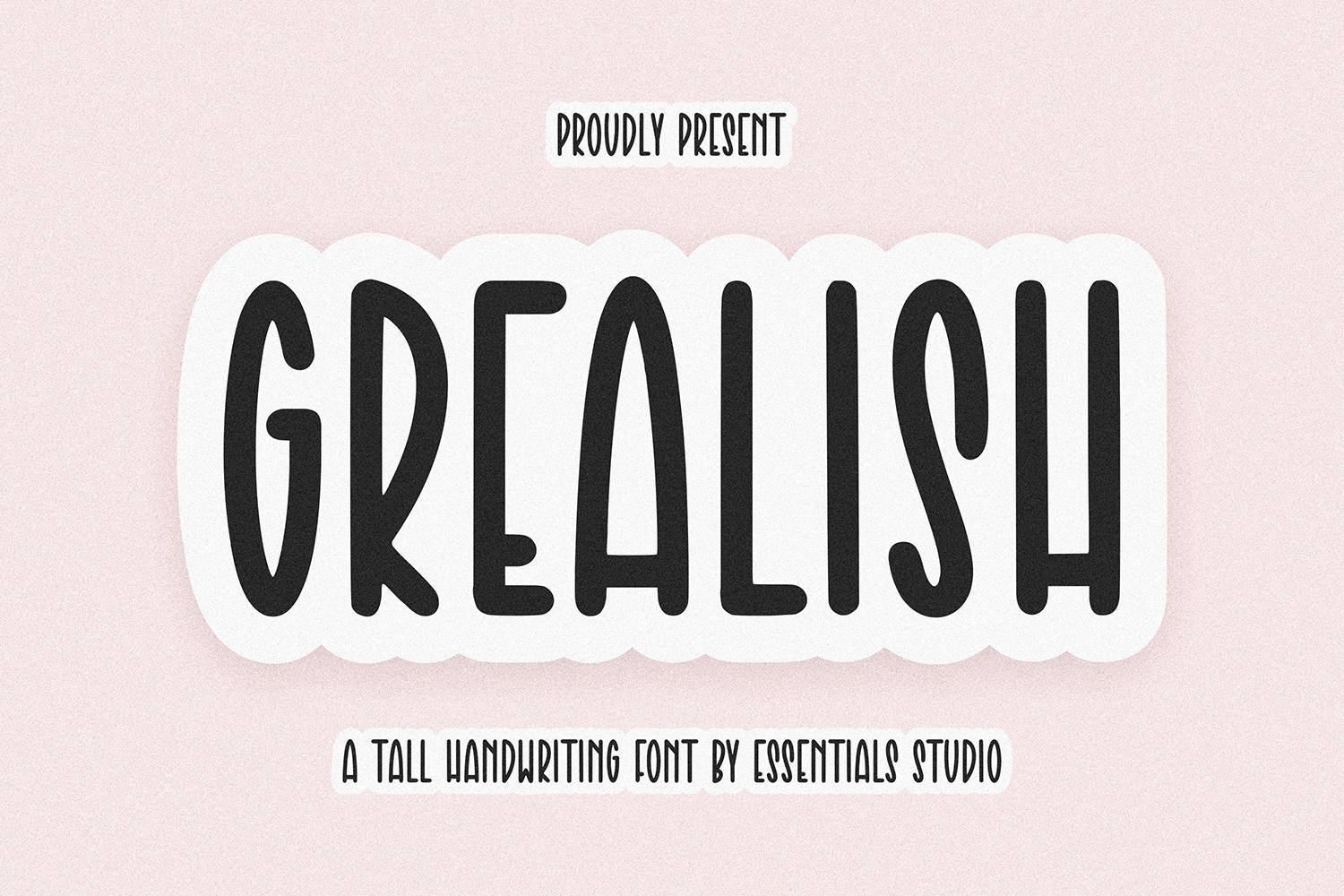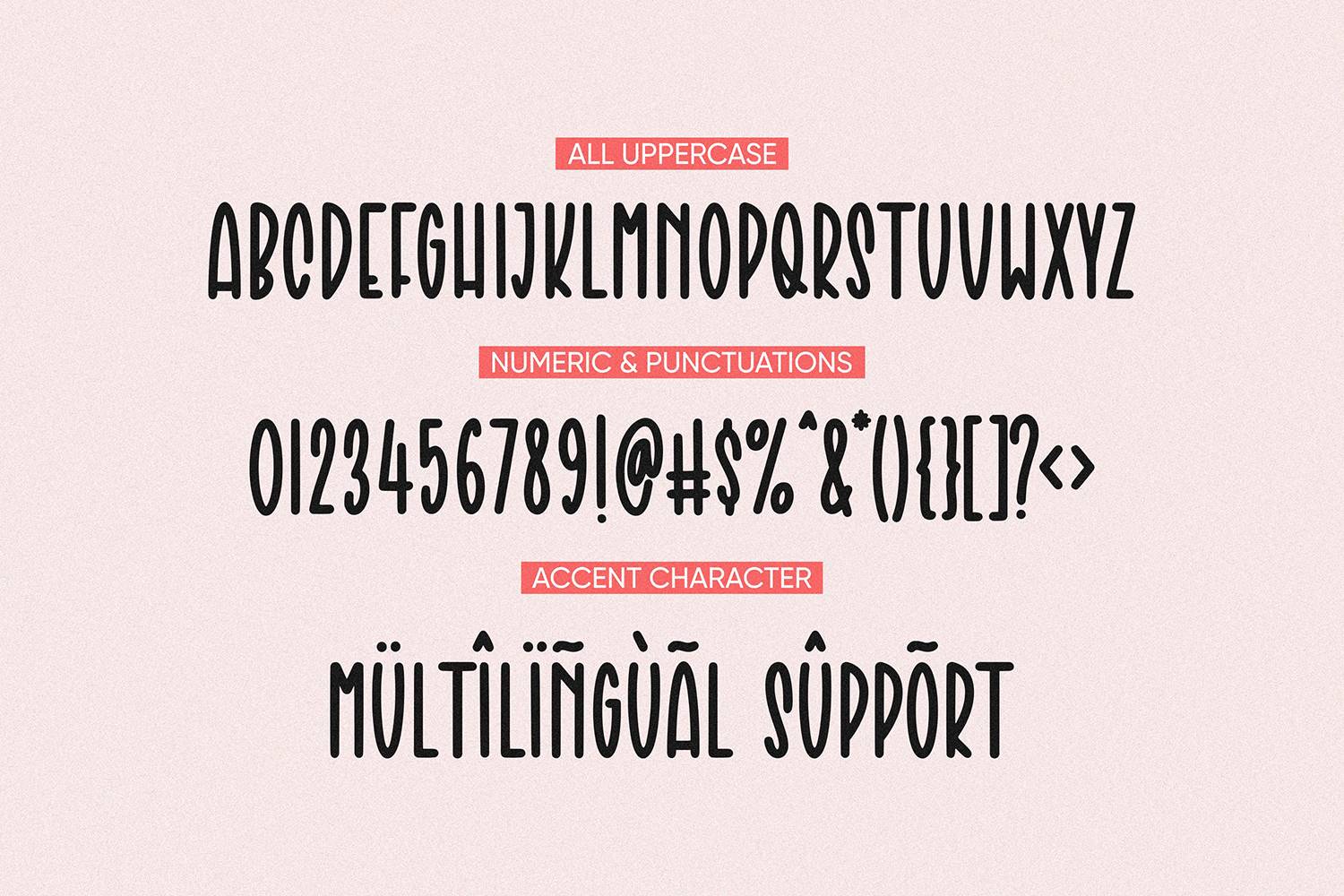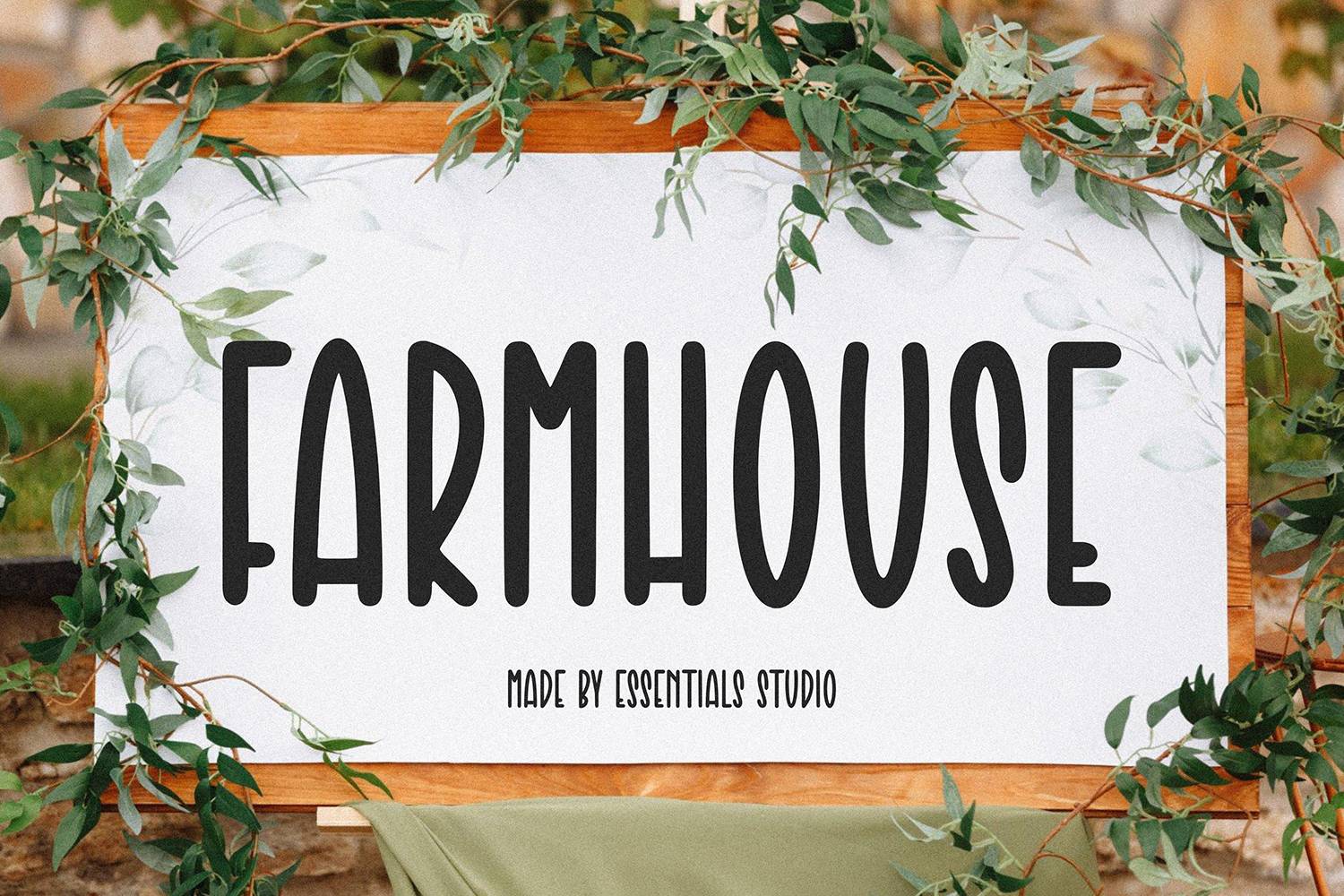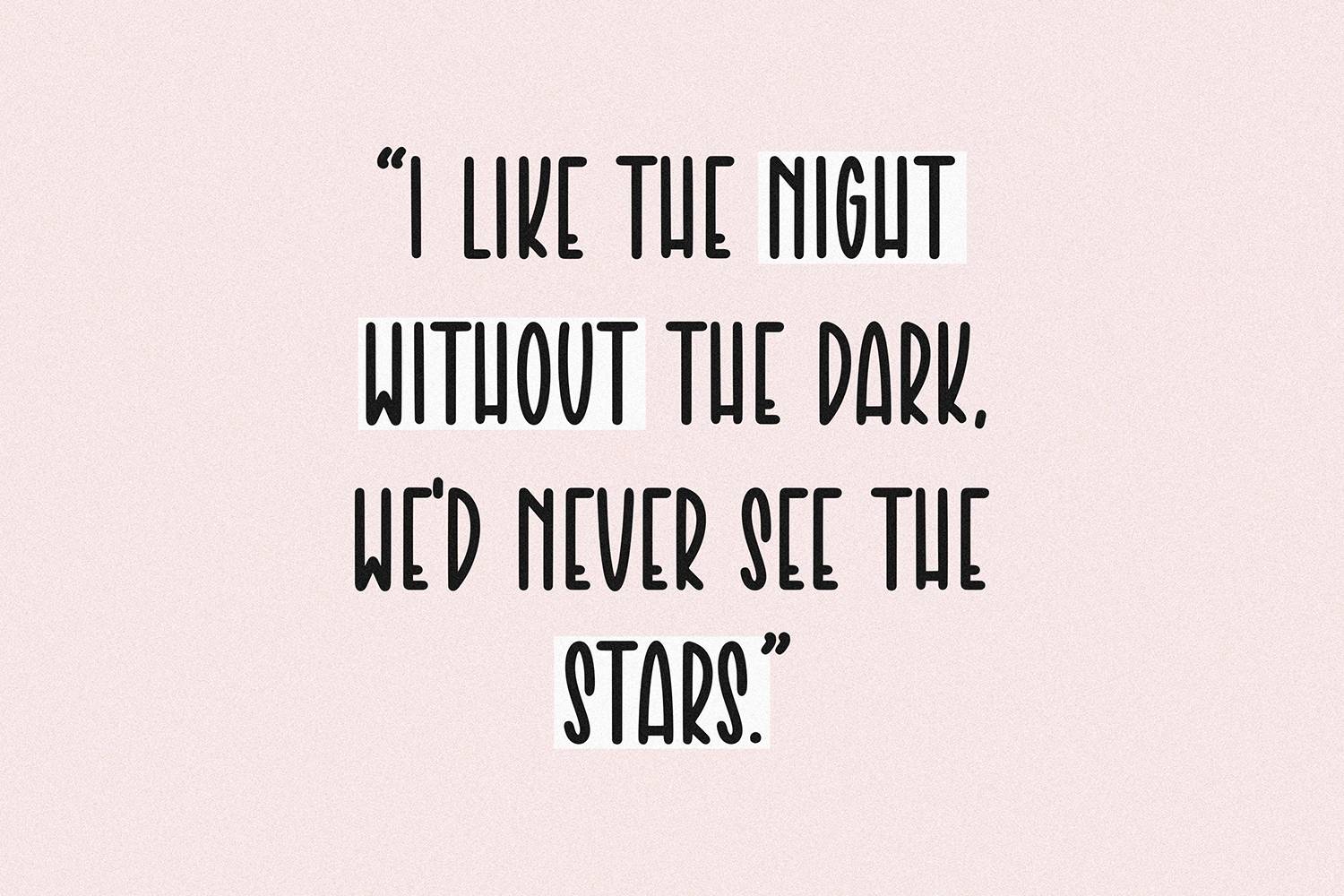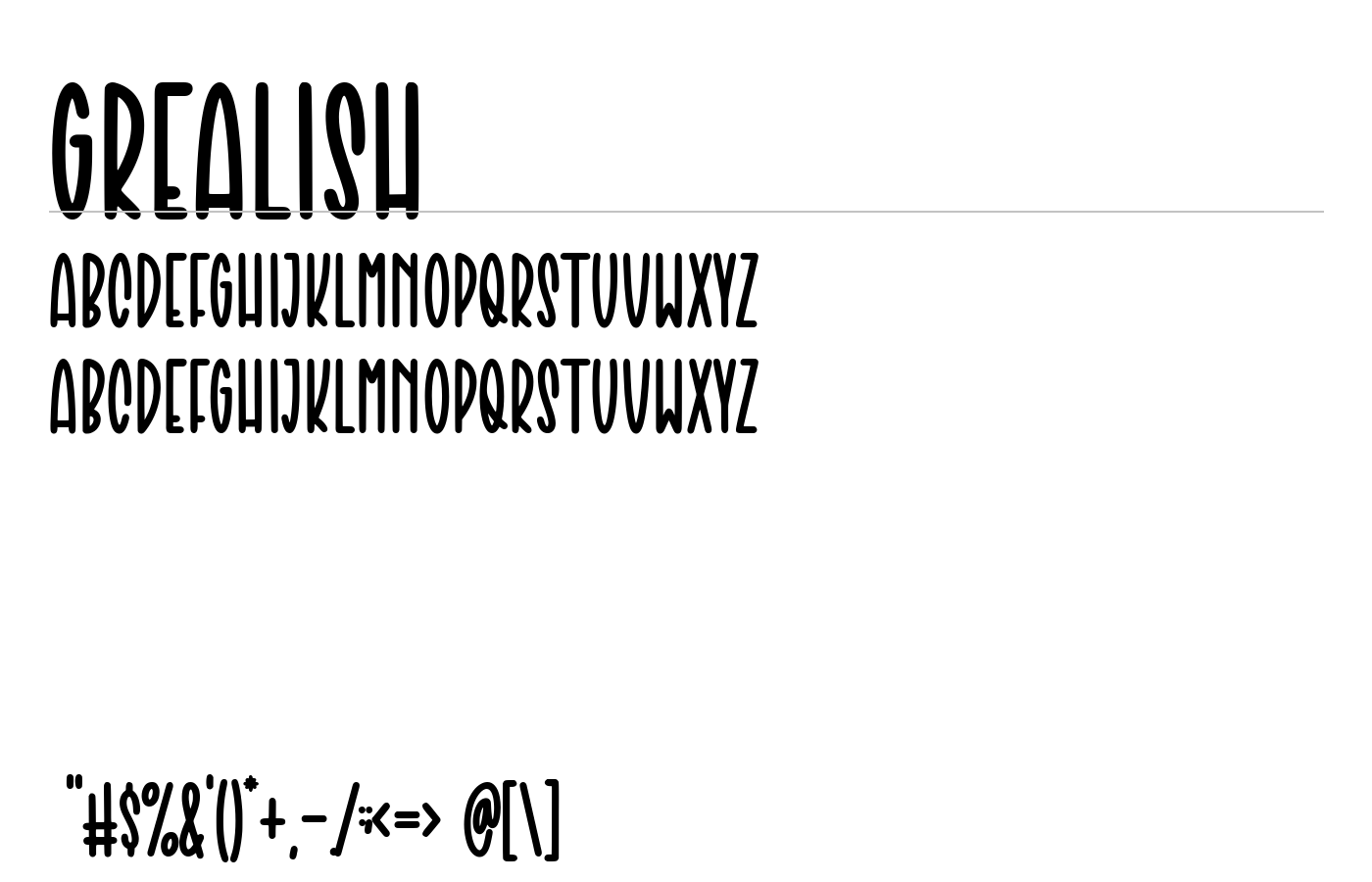
Grealish is a tall, narrow sans-serif font with a playful yet slightly quirky personality, featuring rounded terminals and consistent stroke weight that gives it a clean, approachable feel. Its condensed letterforms and upright style make it great for headlines, logos, and branding that want to stand out with a unique, friendly vibe without losing readability. This font works well for creative projects, informal designs, and modern layouts that seek a distinctive but inviting look.
Grealish Font
About Grealish Font
| Font family | Grealish Font |
| Designer | Annas Rifky Anhar |